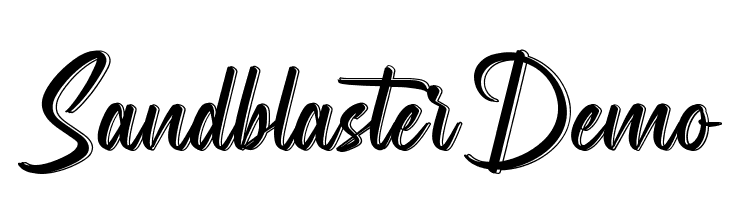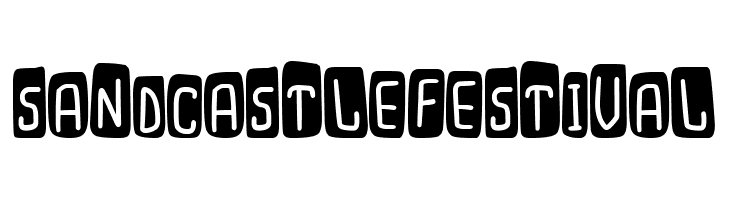
A bold, cursive font with interconnected, flowing letters and strong strokes.
A bold, textured script font with a dynamic, hand-drawn style.
A bold, dynamic script font with high contrast and flowing letterforms.
A bold, expressive script font with dramatic flourishes and high contrast.
A bold, expressive brush-style font with dynamic strokes and artistic flair.
A playful, bold font with characters in rounded rectangles, ideal for creative projects.
A playful, handwritten font with irregular strokes and a casual style.
A dynamic, cursive font with fluid strokes and a handwritten aesthetic.
A delicate and elegant handwritten font with fluid, graceful strokes.